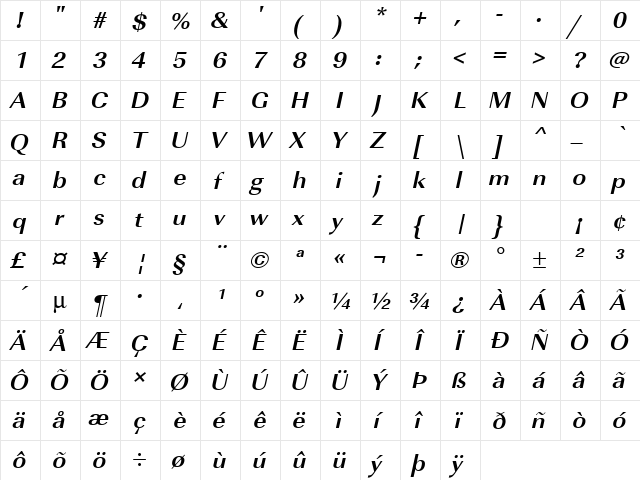
URWImperialTWid Bold Oblique Font Preview
URWImperialTWid Bold Oblique
Design Context for URWImperialTWid Typeface
URWImperialTWid is a composed and adaptable typeface that performs quietly and consistently across a wide range of design contexts. The dynamic lean of this cut emphasises speed and emphasis in any layout. Its bold stroke weight gives it real presence on the page.
Pro Tip: Use URWImperialTWid for emphasis, pull quotes, and subheadings where its slanted energy can add rhythm to the layout.